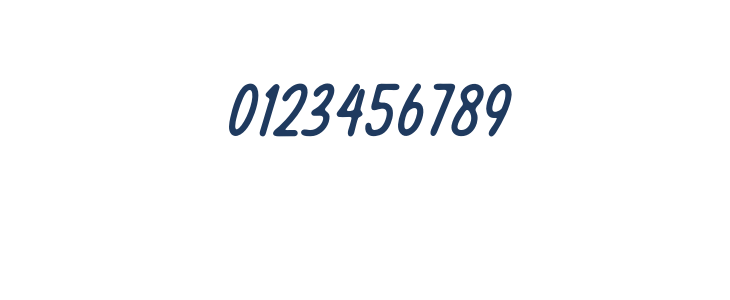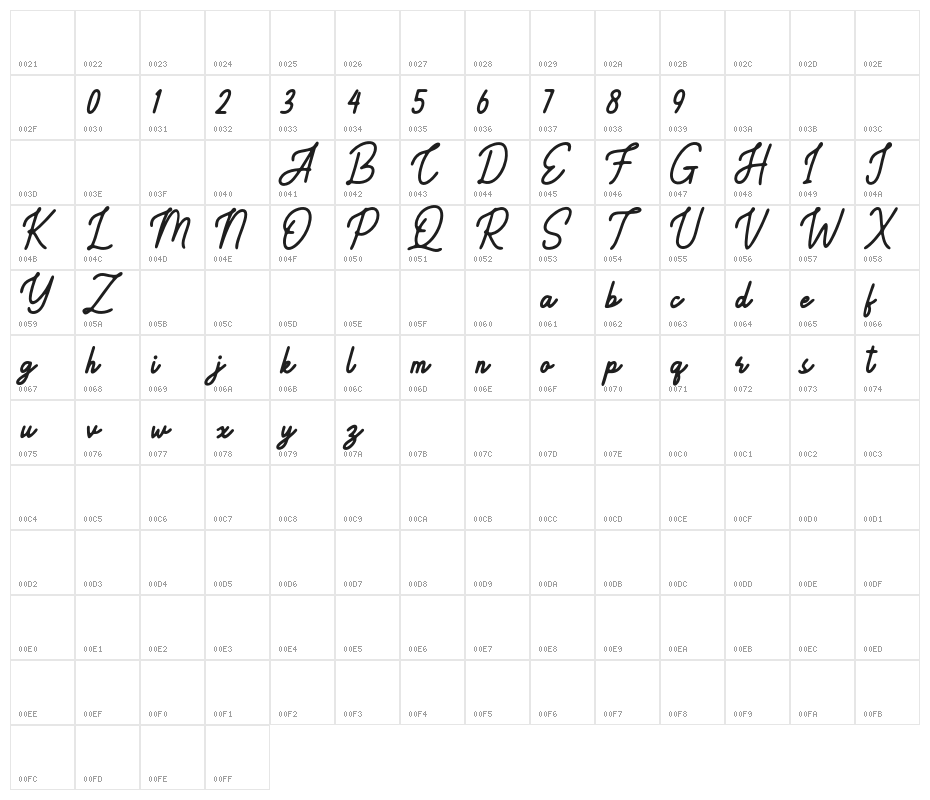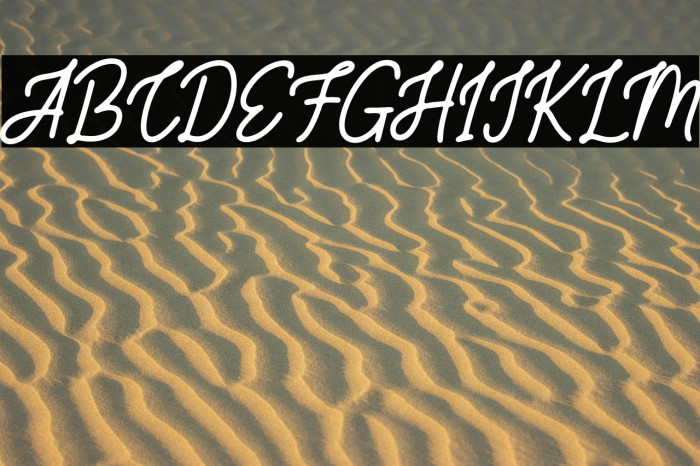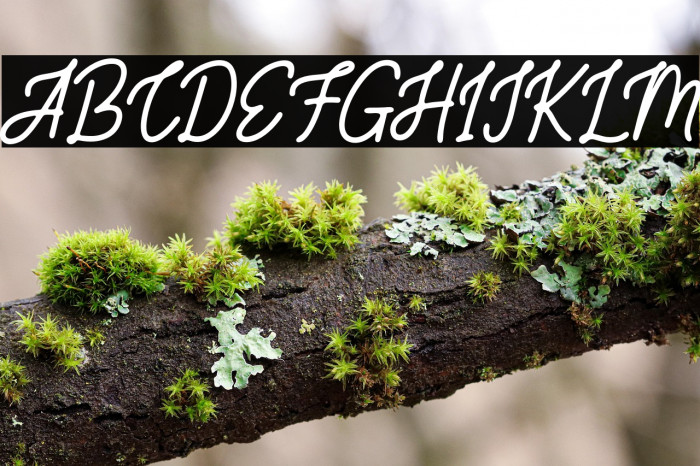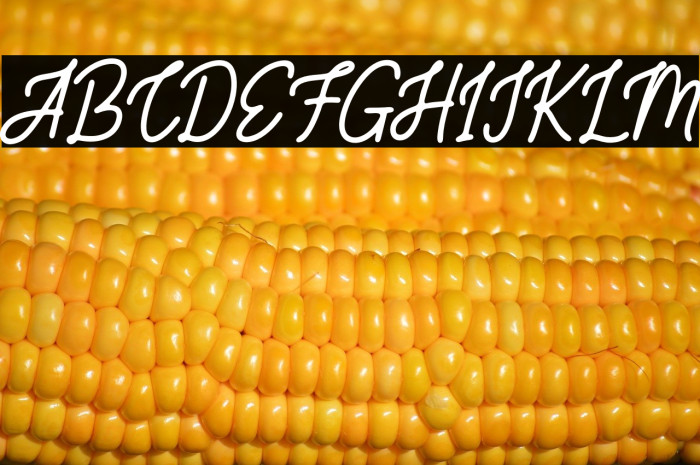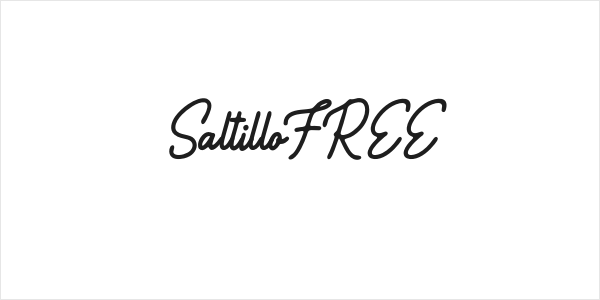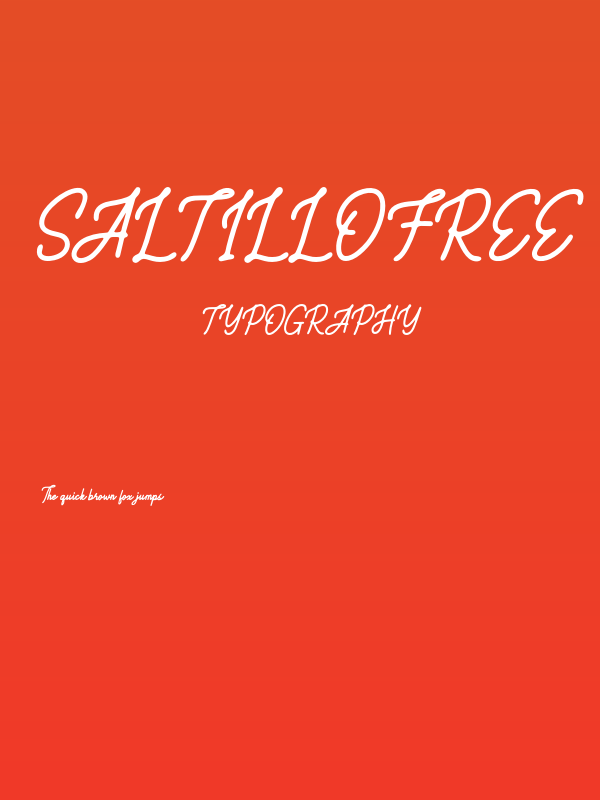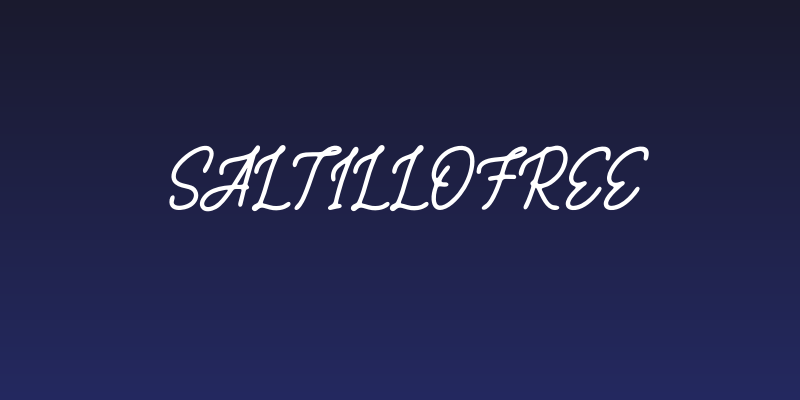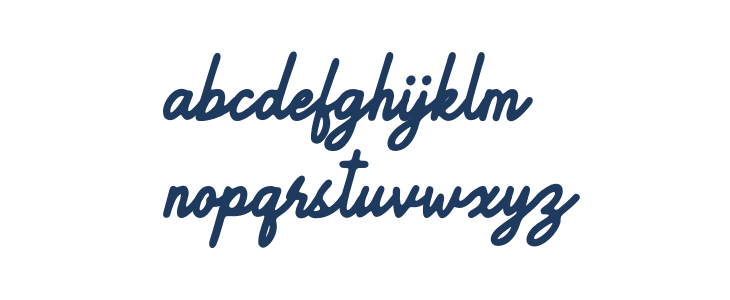
SaltilloFREE Font
SaltilloFREE Description
This font features a flowing, cursive style that mimics natural handwriting. The uppercase letters are elegant and slightly slanted, giving a sense of motion and fluidity. The lowercase letters maintain a consistent style, with smooth curves and connected strokes that enhance readability while preserving a handwritten aesthetic. The numerals are bold and clear, matching the overall style of the alphabet. This font is versatile, suitable for projects that require a personal touch, such as invitations, greeting cards, or branding materials. Its playful yet sophisticated appearance makes it ideal for creative and artistic applications.